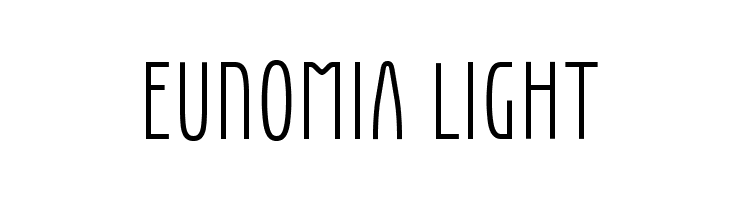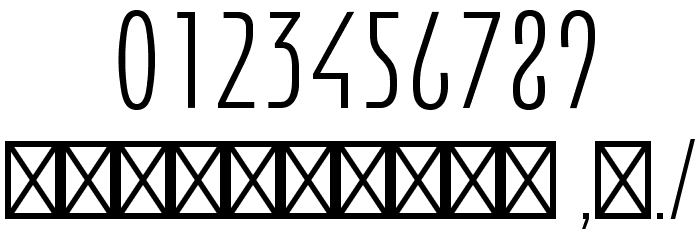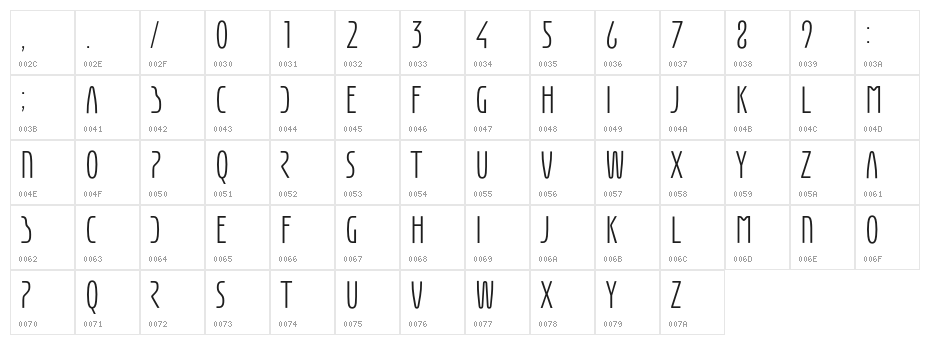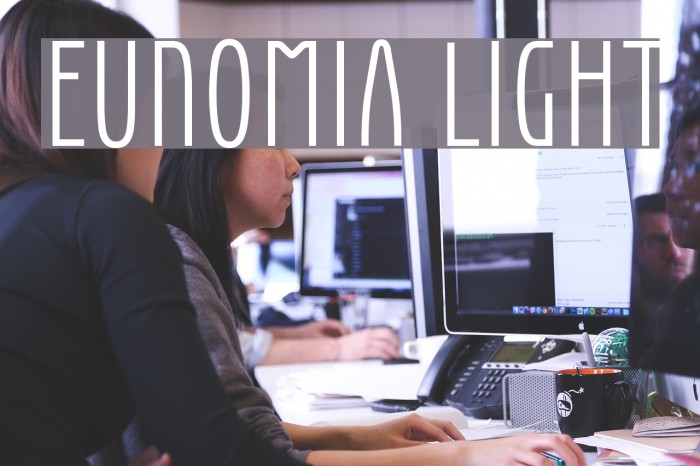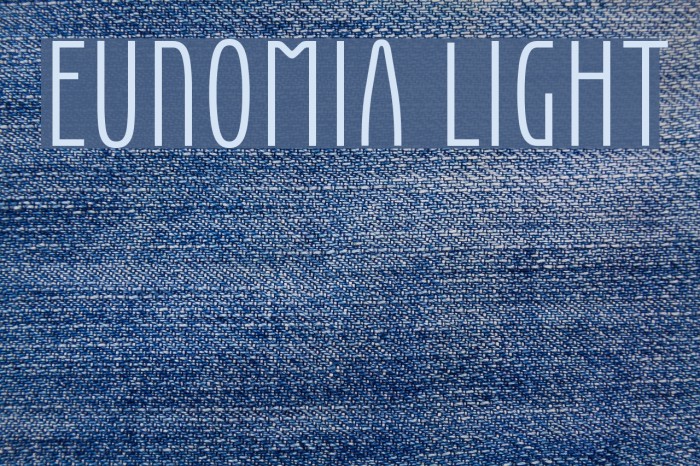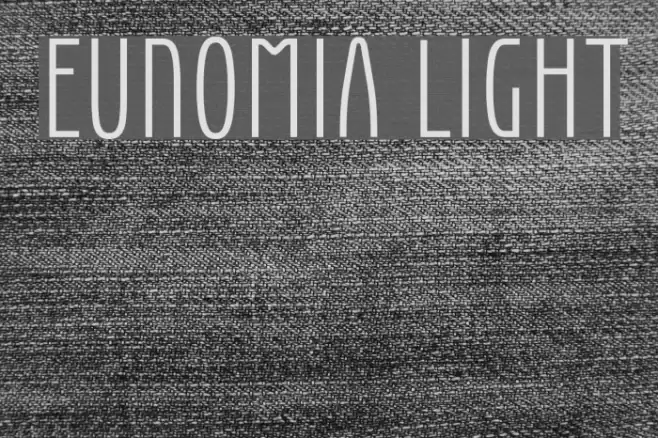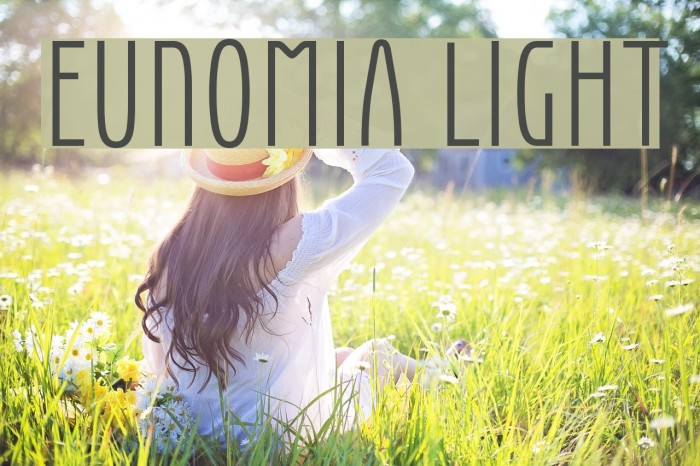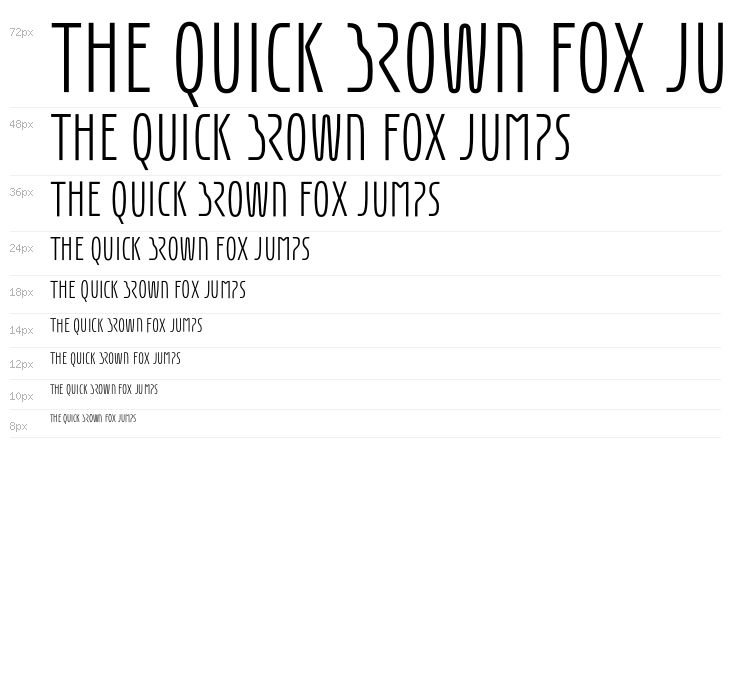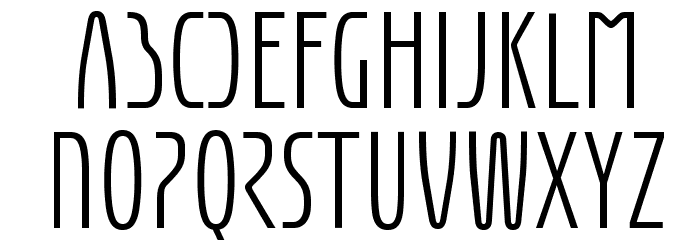
Eunomia Light Font
Eunomia Light Description
This font features a modern and geometric design with clean lines and a distinct architectural feel. The characters are elongated and have a unique angularity, giving them a futuristic appearance. The uppercase letters are particularly striking, with some characters like 'A', 'B', and 'R' having unconventional shapes that add to the font's distinctive style. The numbers are equally stylized, maintaining the overall aesthetic with their sleek and narrow forms. This font is well-suited for projects that require a contemporary and edgy look.
| Proposed Projects | Ideal for branding, posters, and digital media projects that aim for a modern and edgy aesthetic. |